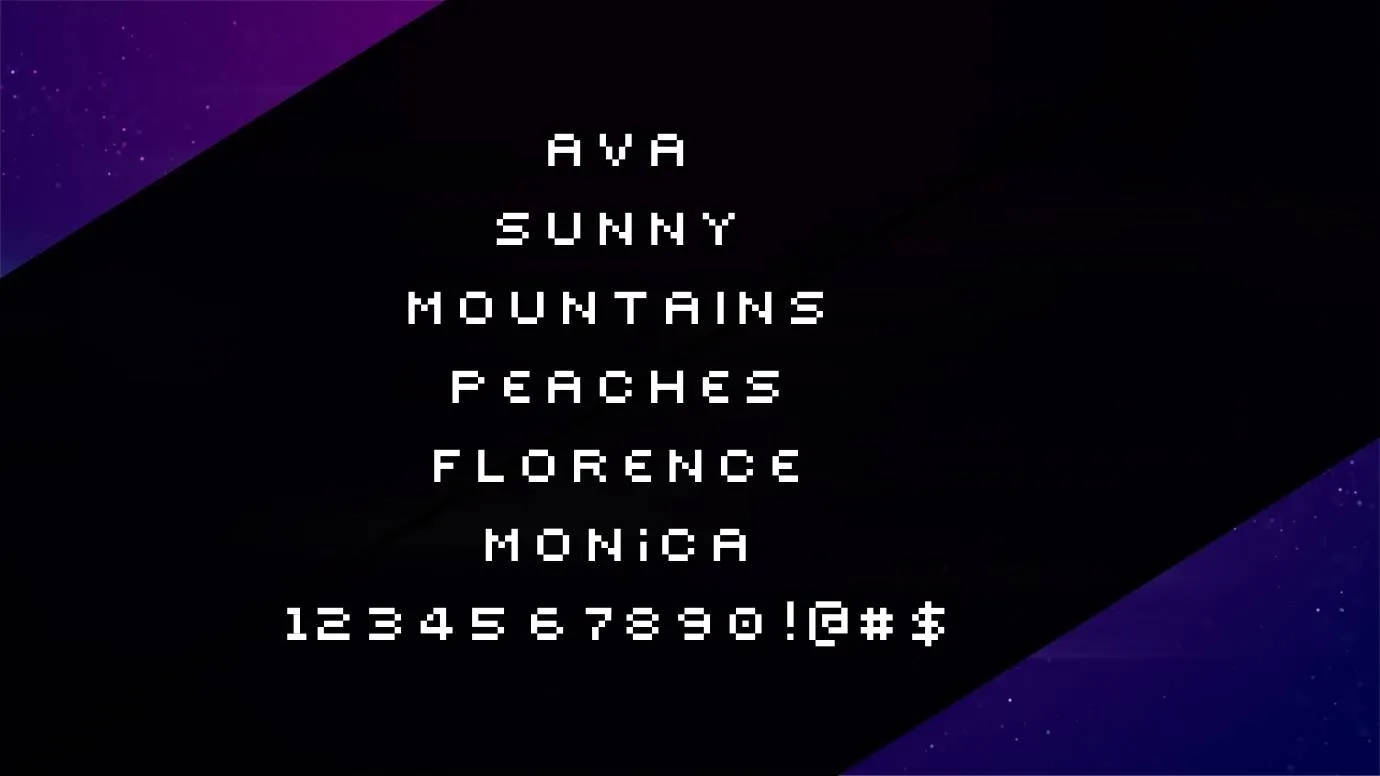
Sevenet Font was designed by Sevenet Type Foundry. The font is available in three weights- light, regular and bold. It can be used for both personal and commercial purposes.
Sevenet texture was inspired by the geometry of the seven-sided figure. The shapes of the letters are based on the proportions of this figure. This results in a font that is both unique and stylish.
The Sevenet texture family includes a wide range of characters, including support for international languages. This makes it a great choice for those who need a font that can be used for a variety of purposes.
The pairing quality of this typeface is really good that goes with any kind of sans-serif. You can use this font for branding, headlines, packaging, and much more.
Sevenet Font was designed by Sevenet Type Foundry. The font is available in three weights- light, regular and bold.
This single appealing design incorporates several elements such as uppercase and lowercase letters, numerals, punctuation, characters, distinctive symbols, glyphs, and multiple language support.
| Name | Sevenet Font |
| Style | Techno |
| Designer | Sevenet Type Foundry |